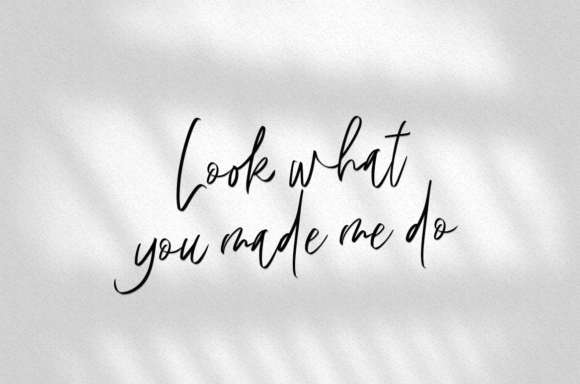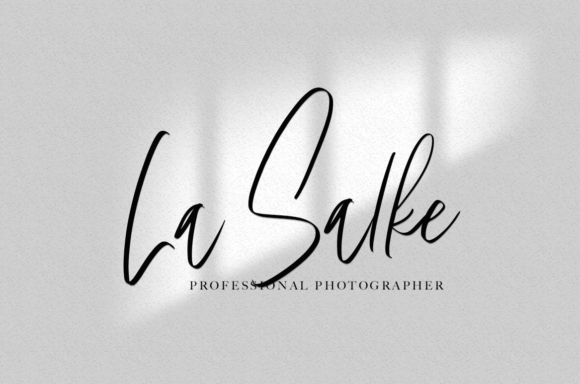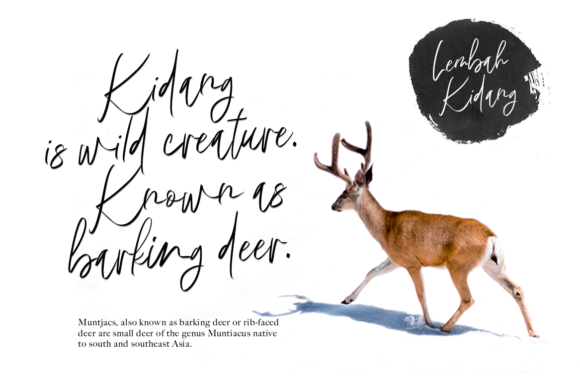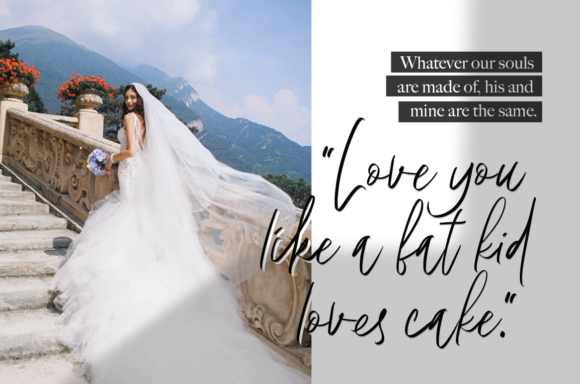
Lembah Kidang Font
Lembah Kidang is an incredibly relaxed and stylish handwritten font. Its unique and casual style makes it particularly adept to a wide variety of projects, be it wedding invitations, beautiful stationary art, eye-catching social media posts, and cute greeting cards.